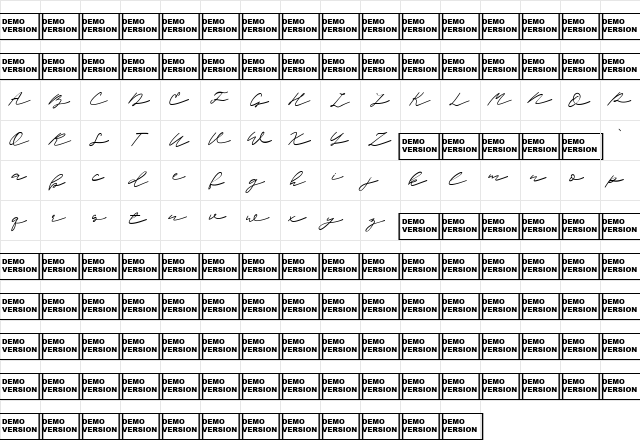
Scandilover Script Regular
Design Context for Scandilover Script Typeface
Scandilover Script brings a calligraphic fluidity to the page — its connecting strokes and expressive curves give it an unmistakably human quality.
Font Pairing: Combine Scandilover Script with a simple geometric sans for maximum contrast — the tension between flowing curves and clean structure is a classic typographic pairing.
Pro Tip: Pair Scandilover Script with a clean sans-serif for supporting text. The contrast between fluid script and geometric structure creates an elegant typographic hierarchy.